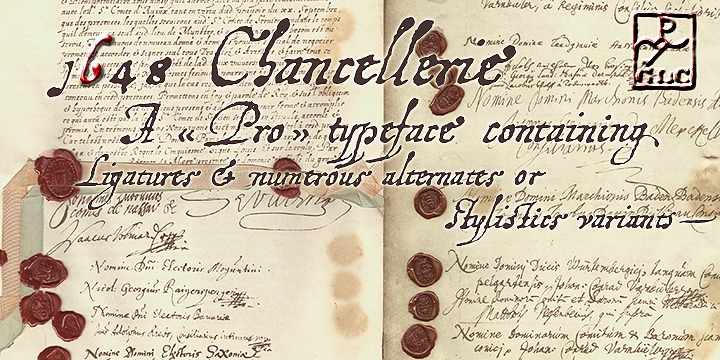
This font was inspired by the hand-written 1648 Munster peace treatise signed by French King Louis XIV and German emperor Ferdinand II. It is a Cancellaresca font style, meticulously written and almost legible.
It contains Western (including Celtic) and Northern European, Icelandic, Baltic, Eastern, Central European and Turkish diacritics. The numerous alternates and ligatures made the font looking like a real various hand.